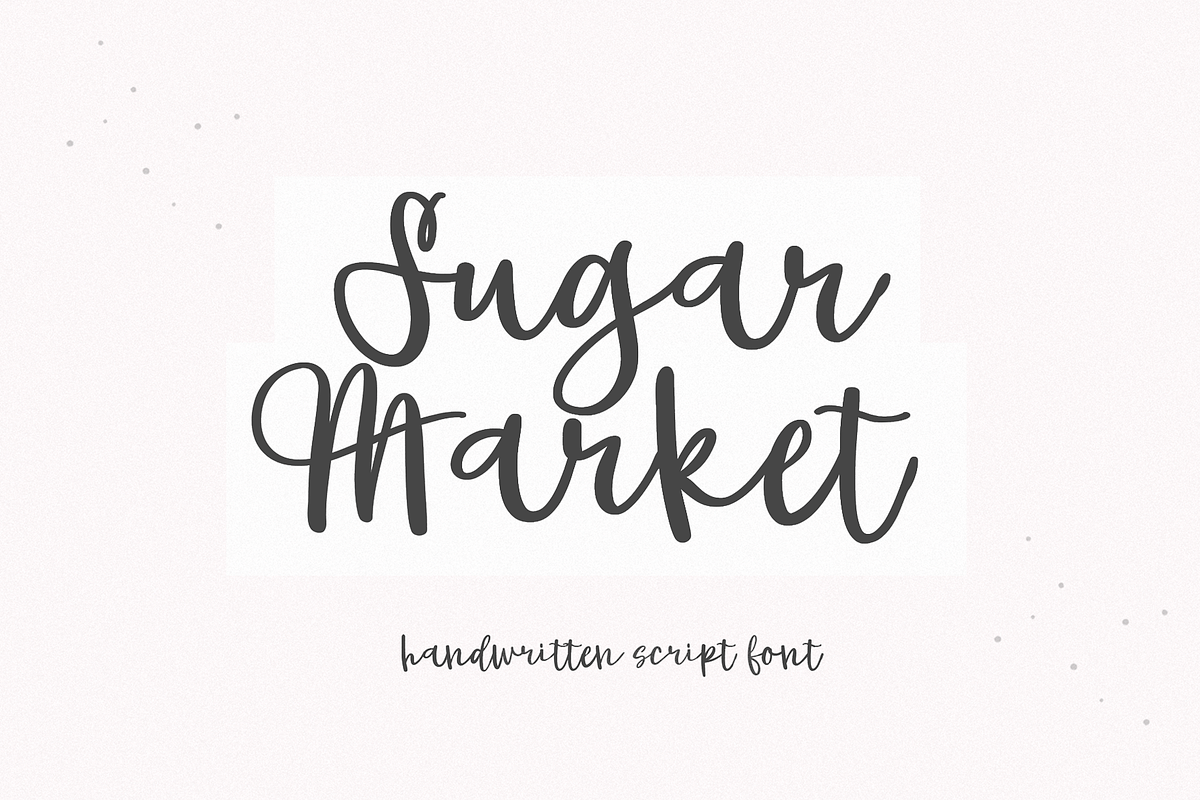
Sugar Market | Farmhouse Script Font Free Download
The Sugar Market | Farmhouse Script Font Free Download is a charming and rustic script typeface that brings a warm, handmade feel to your designs. Perfect for creating farmhouse-style logos, branding, invitations, packaging, and social media graphics, this font adds a cozy, organic touch to any project. Please note, for commercial use, a license must be purchased. You can download it for free for testing purposes.
With its flowing curves and elegant letterforms, the Sugar Market | Farmhouse Script Font Free Download is ideal for projects that need a personal, down-to-earth aesthetic. Whether you’re designing for a farm-to-table brand, custom invitations, or handmade goods, this font will give your designs a welcoming and stylish feel.